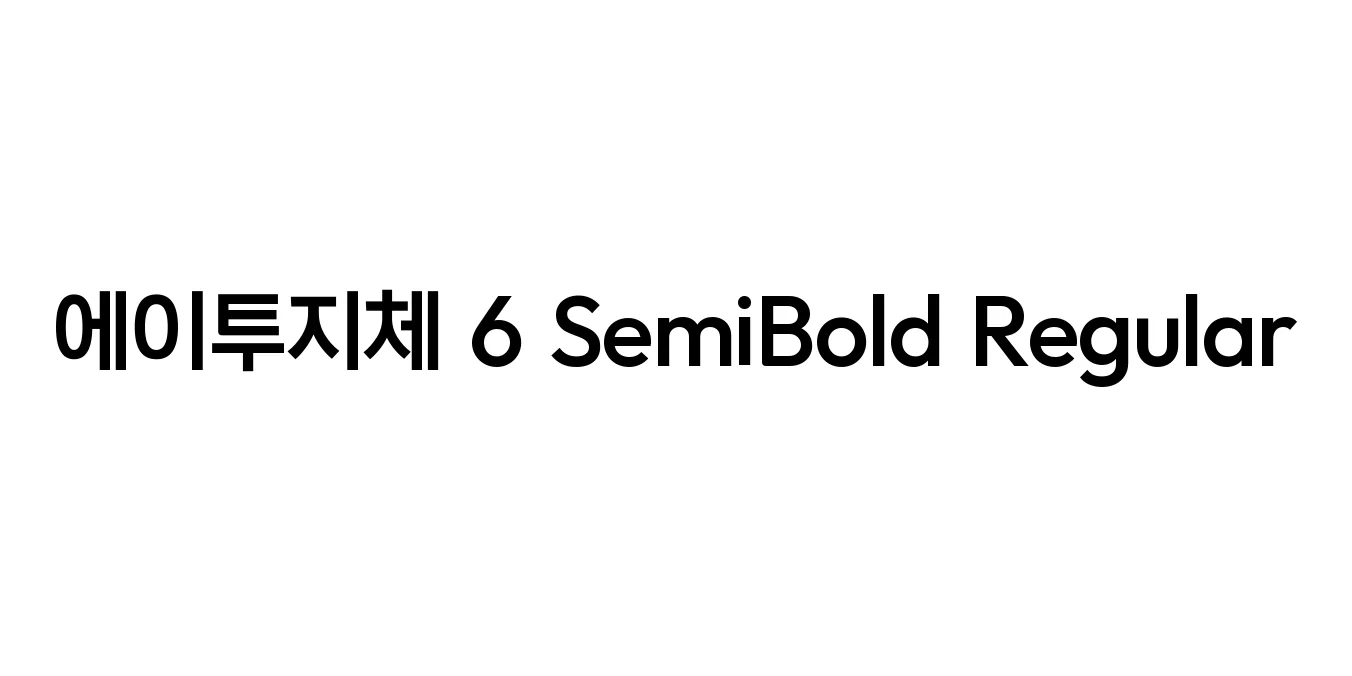
에이투지체 6 Semi Bold
Designed by AtoZ Edu
| Category | Sans-Serif (Gothic) |
| Designer | AtoZ Edu |
| Similar Fonts | Nanum Gothic, Spoqa Han Sans Neo, Pretendard, Gmarket Sans |
에이투지체 6 SemiBold Regular is a sophisticated Hangeul typeface designed to harmonize modern geometric aesthetics with exceptional legibility. Originally developed for educational branding, this font family focuses on providing a balanced visual weight that works seamlessly across various media. The SemiBold weight specifically bridges the gap between body text and display headers, offering a firm and authoritative presence while maintaining the clean, open counters characteristic of contemporary Gothic styles.
The structural design of the AtoZ Font family emphasizes a consistent stroke thickness and a stabilized center of gravity, which minimizes eye fatigue during extended reading sessions. Its versatile nature makes it a staple for designers looking for a typeface that communicates professionalism and clarity. Whether used in digital interfaces or traditional print layouts, it provides a high-quality typographic solution that meets the rigorous demands of modern communication design.
에이투지체 6 Semi Bold Best Uses
Ideal for bold titles and emphasized section headers in editorial layouts.
Specifically optimized for textbooks, e-learning platforms, and instructional manuals.
Excellent for corporate identities requiring a clean, modern, and reliable image.
Highly readable on screens, making it suitable for UI elements and blog headings.
Clear and impactful for posters, flyers, and digital marketing banners.